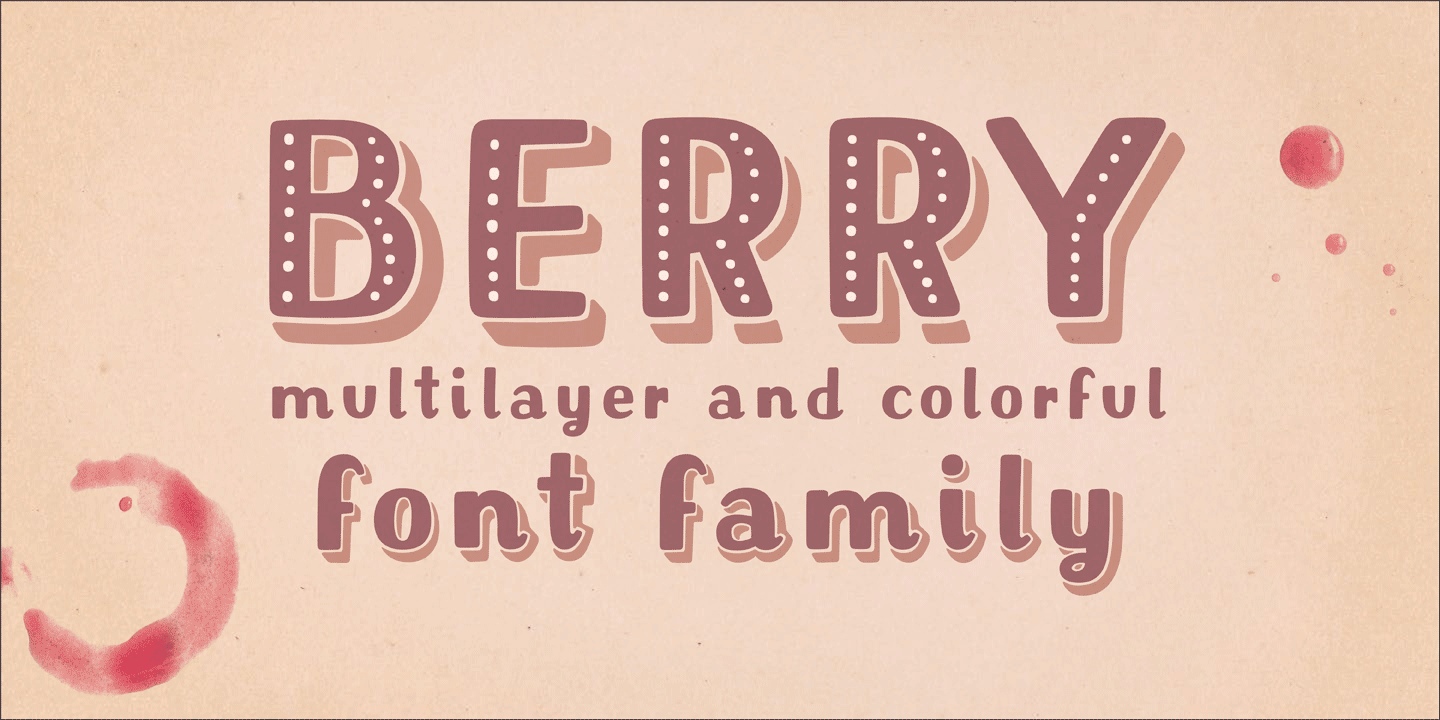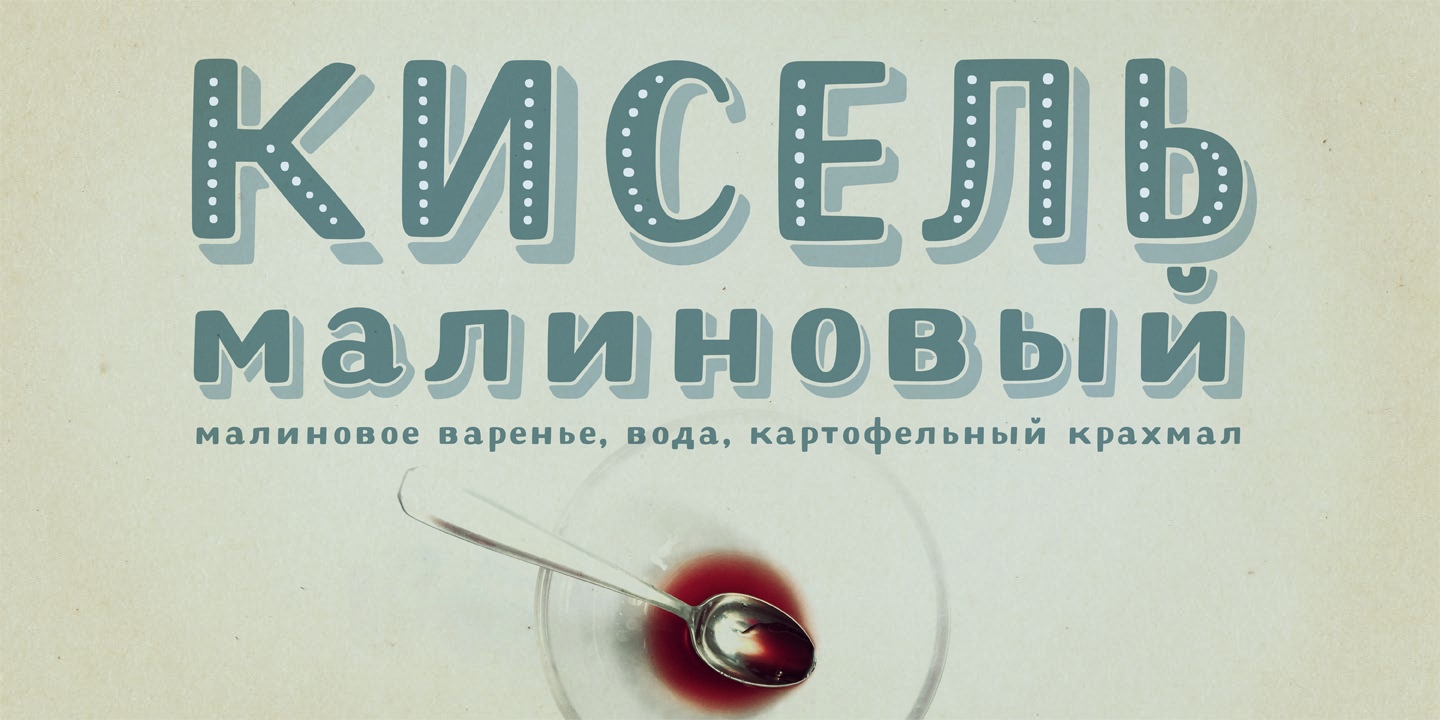
Mrs Berry Font
This hand-drawn typeface is ideal for children’s books, playful branding, greeting cards, and posters, offering a whimsical and friendly aesthetic.
Mrs Berry Font excites designers with its bold, rounded shapes and layered styles, perfect for creating vibrant, eye-catching visuals.
The Mrs Berry Font family includes Regular, Dotted, Shaded, Dotted Shaded, Dots, and Shade variants, providing versatile creative options.
When it comes to typography that radiates fun and creativity, Mrs Berry Font Free Download is a standout choice. Designed by Hipopotam Studio, this hand-drawn typeface brings a playful, approachable vibe to any project. Its rounded, bold characters and layered options make it perfect for designs that need to capture attention while maintaining charm.
This font excels in applications like children’s books, where its whimsical style appeals to young readers. It’s also a favorite for playful branding, such as logos for toy companies or cafes, and for creating engaging greeting cards and posters. Graphic designers and content creators use Mrs Berry Font to craft social media graphics that pop with personality, thanks to its versatile layered styles.
The excitement around Mrs Berry Font lies in its ability to combine playfulness with functionality. Its bold, consistent stroke width and slightly irregular baseline give it a handcrafted feel, making it ideal for industries like education, entertainment, and lifestyle. The layered variants, like Dotted and Shaded, allow designers to experiment with colorful combinations, adding depth and flair to their work.
The Mrs Berry Font family offers six styles: Regular for a clean base, Dotted and Dotted Shaded for textured effects, Shaded and Shade for depth, and Dots for a unique, playful touch. These options support both Latin and Cyrillic scripts, ensuring broad usability. This flexibility makes it easy to create dynamic, multidimensional designs.